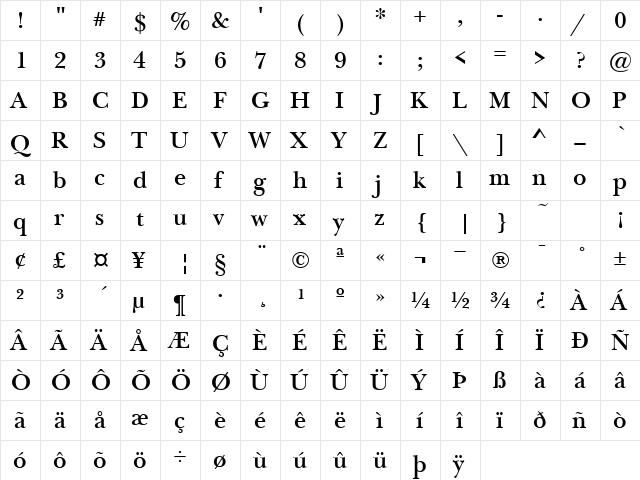
NewBaskerville SemiBold
Design Context for NewBaskerville Typeface
NewBaskerville offers clean, dependable letterforms without strong stylistic allegiance, making it a practical choice for designers who need flexibility. The heavy weight commands attention and anchors typographic hierarchies.
Pro Tip: Use NewBaskerville in both headline and body roles to test its range before committing to a single application.